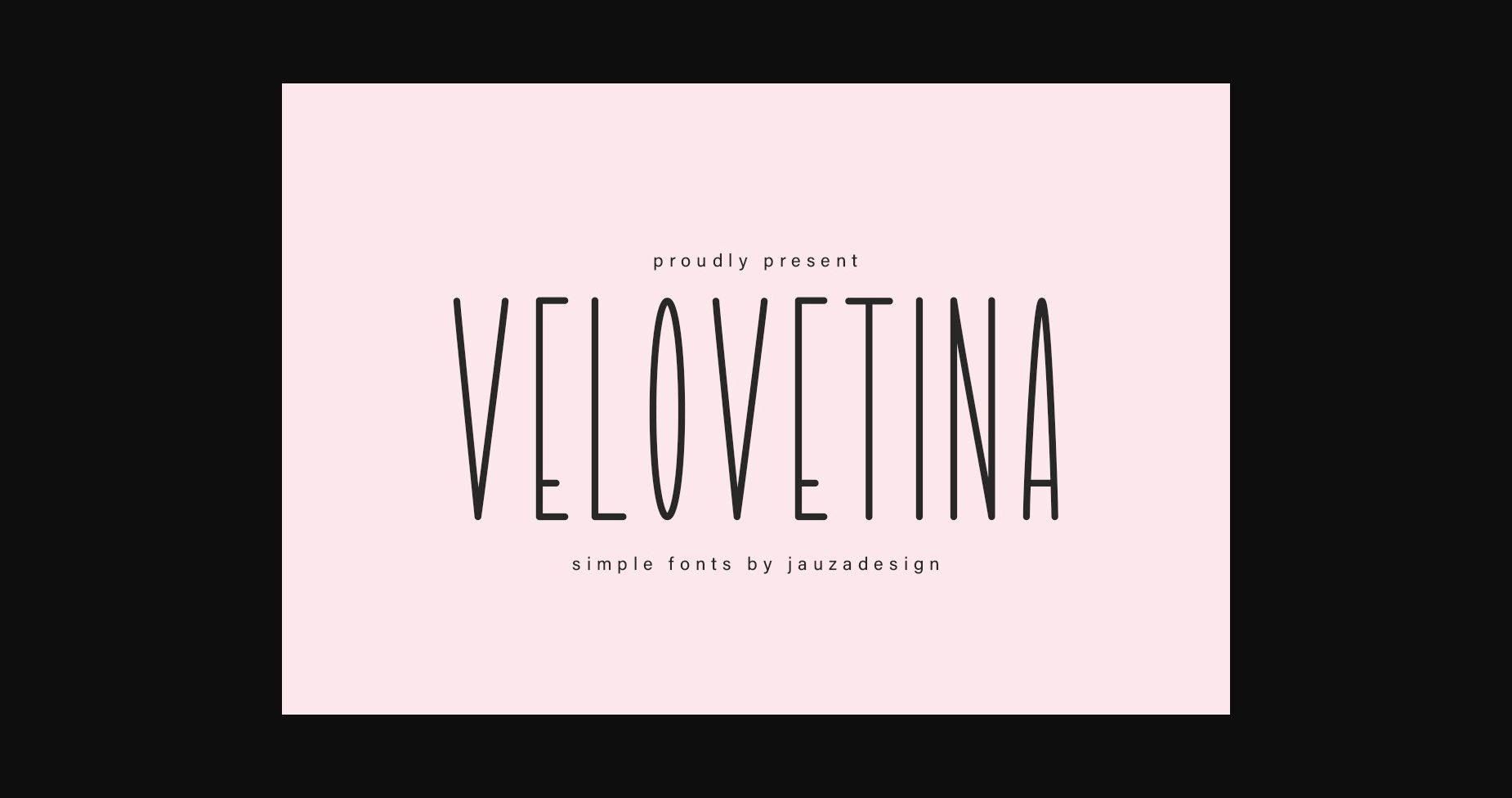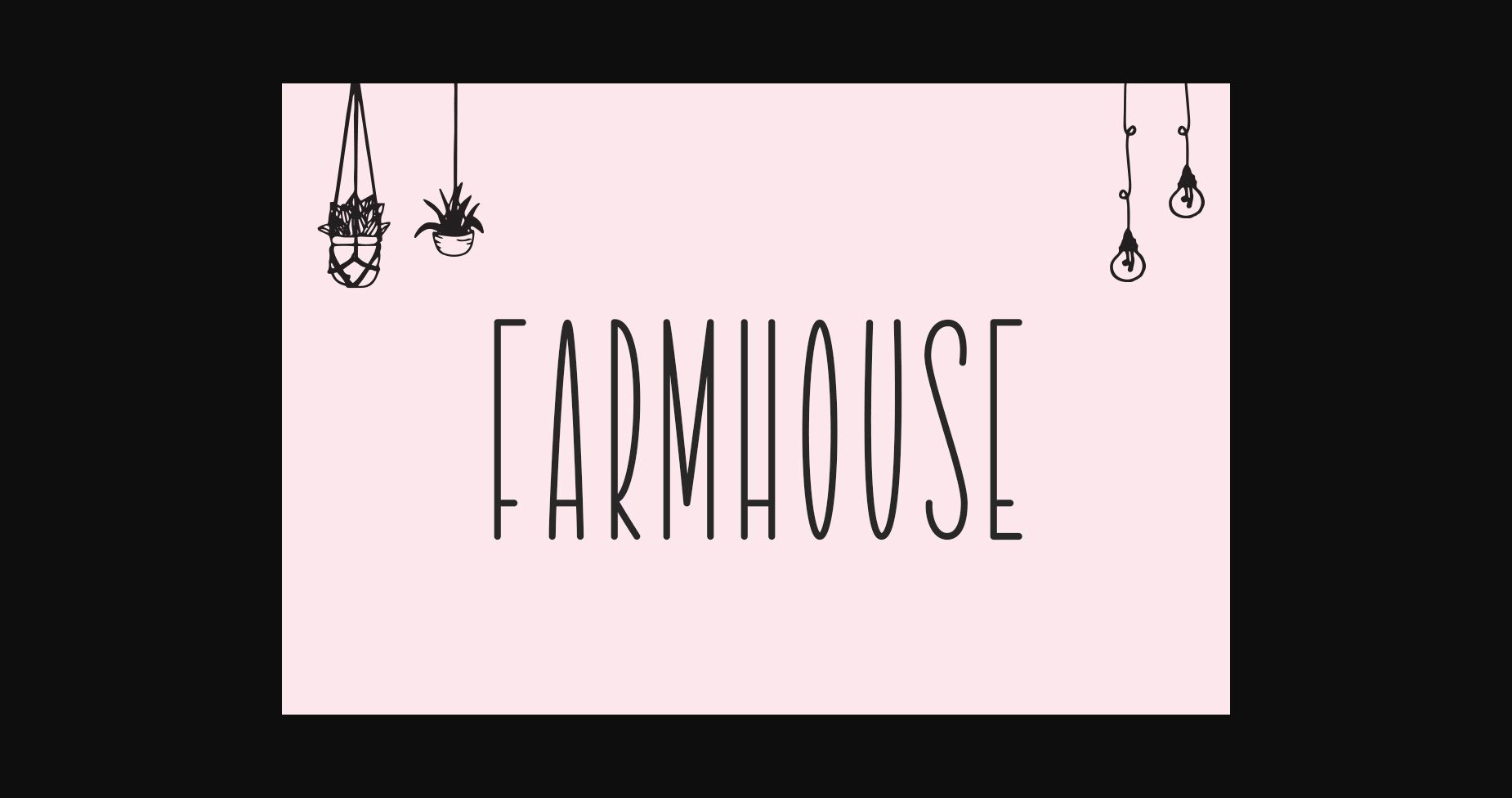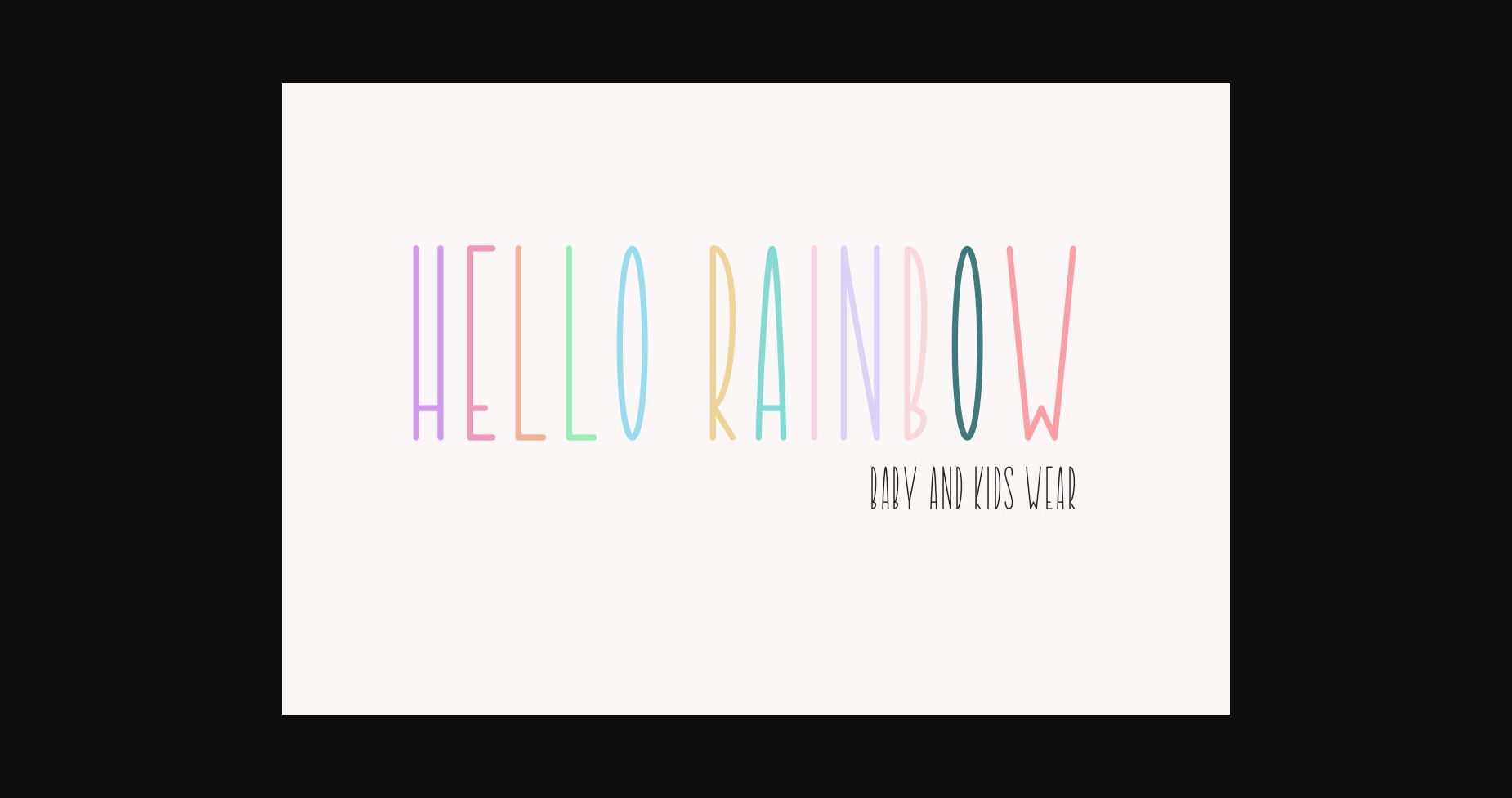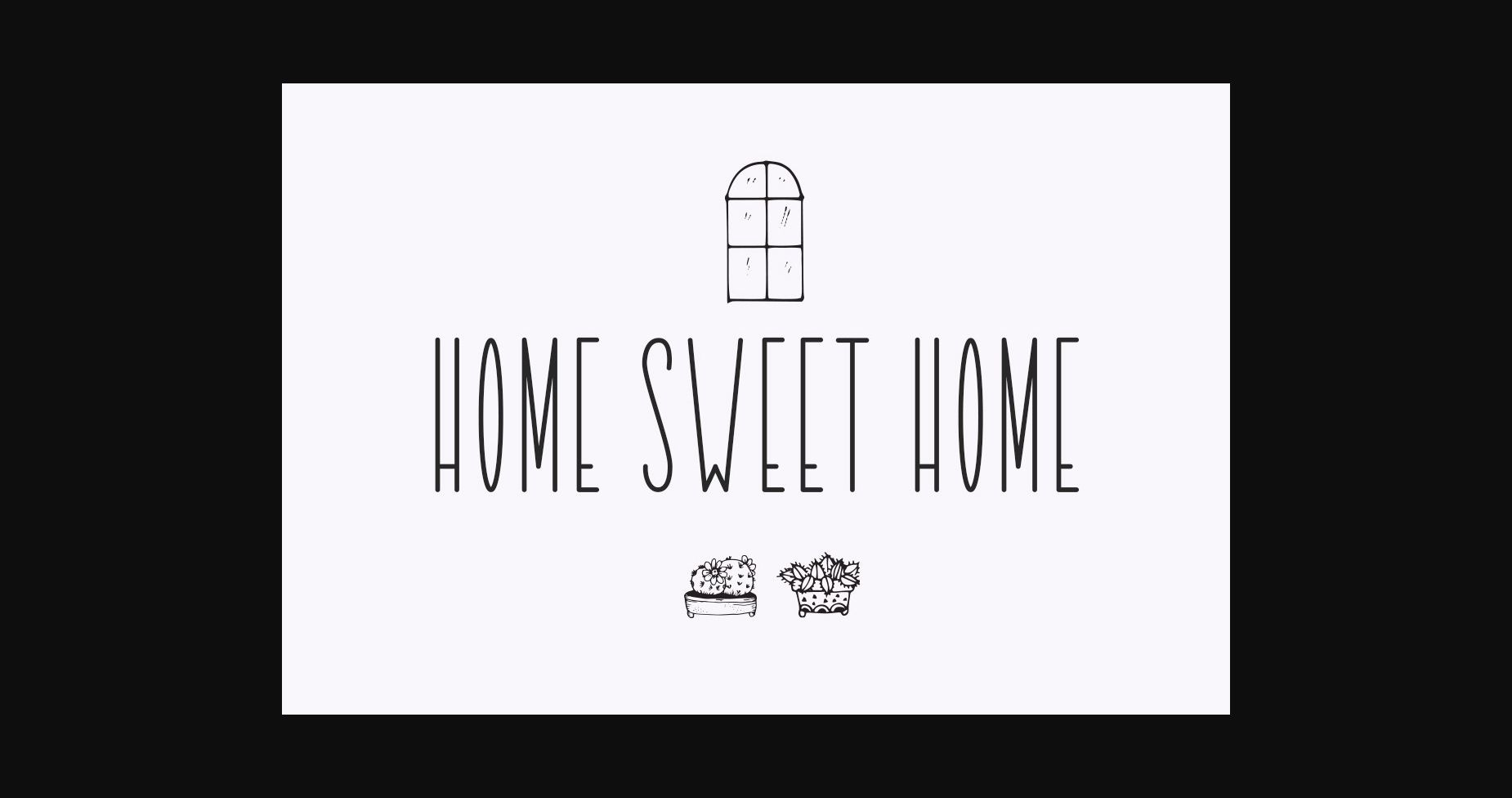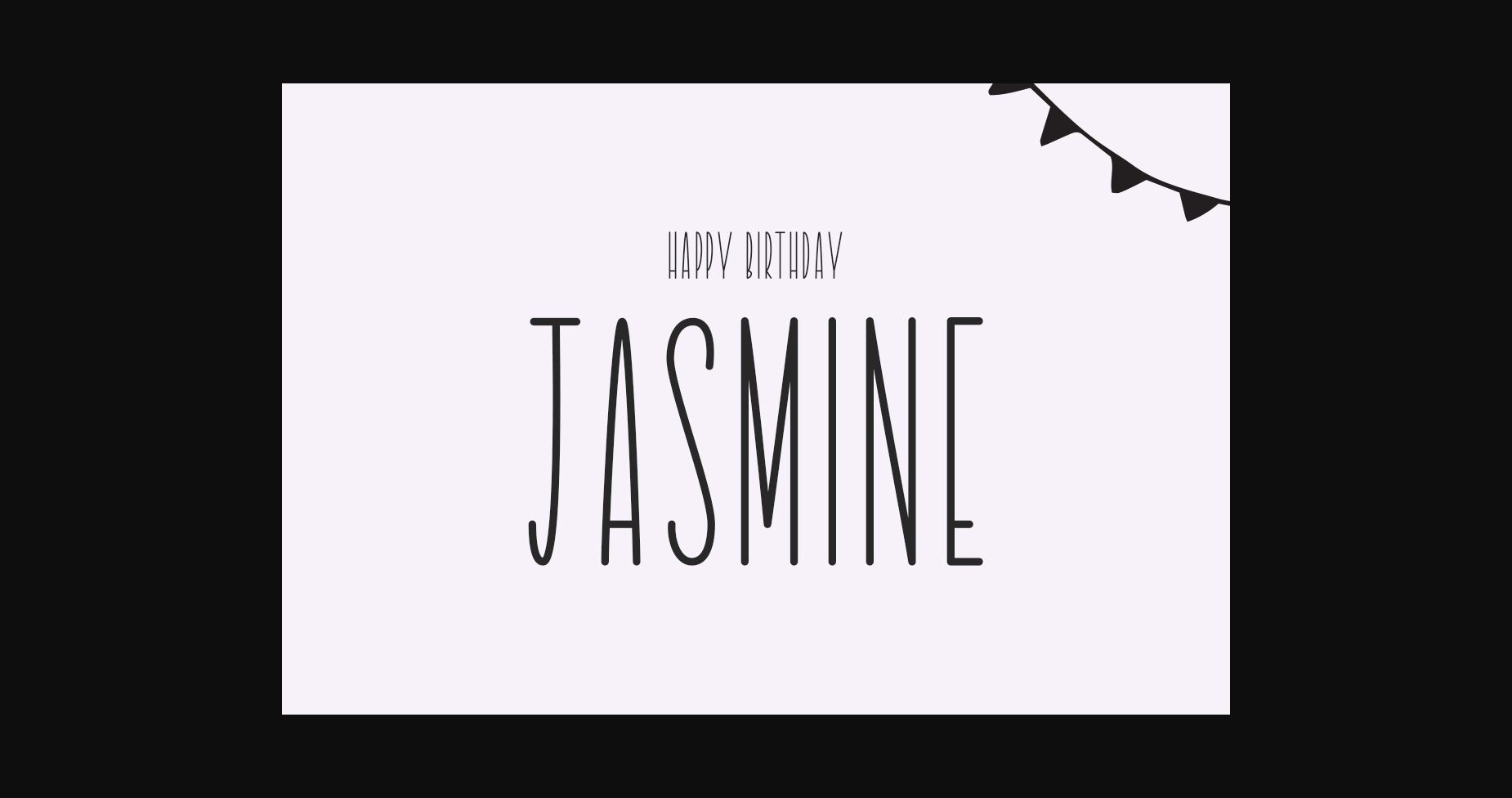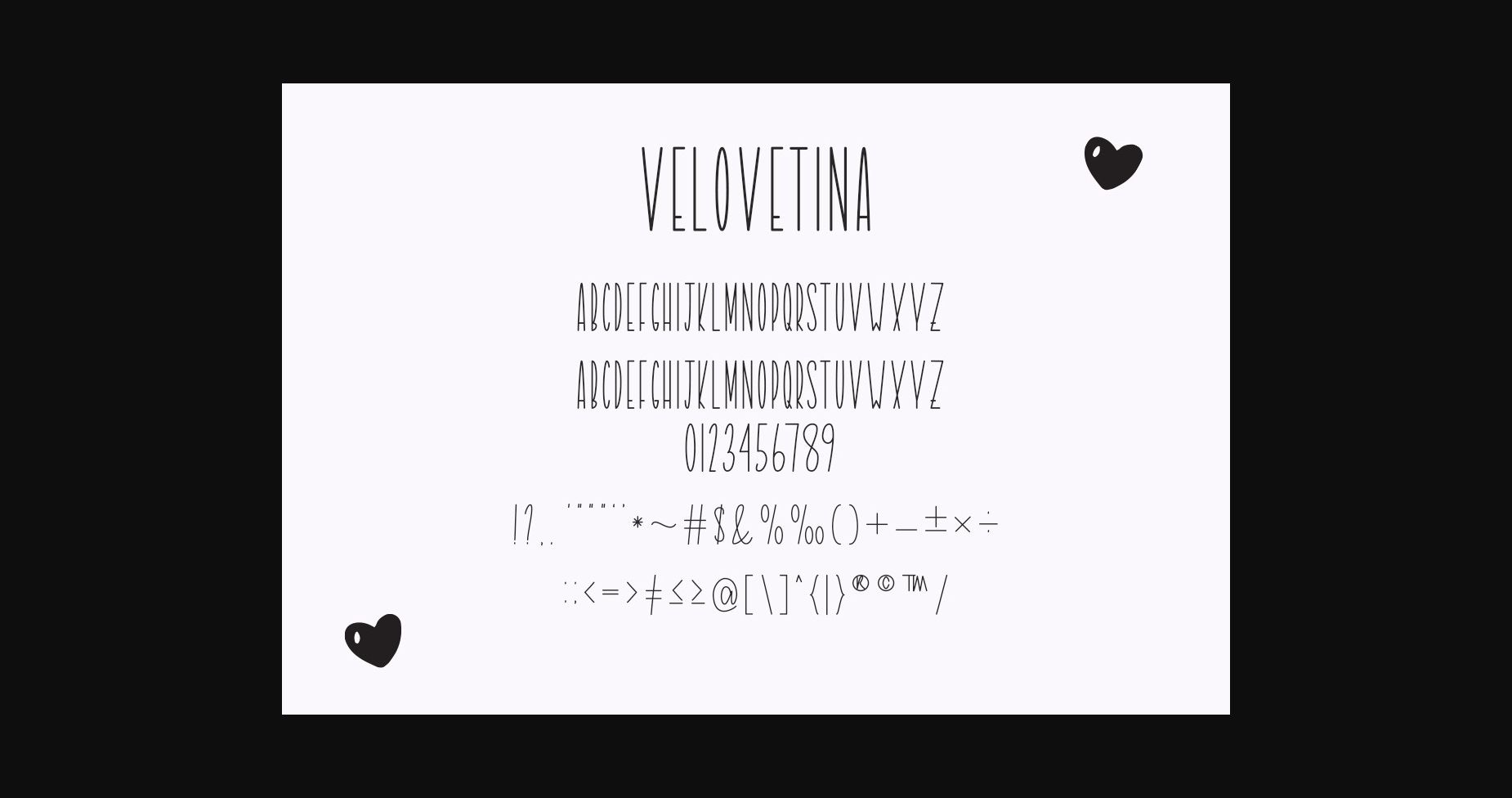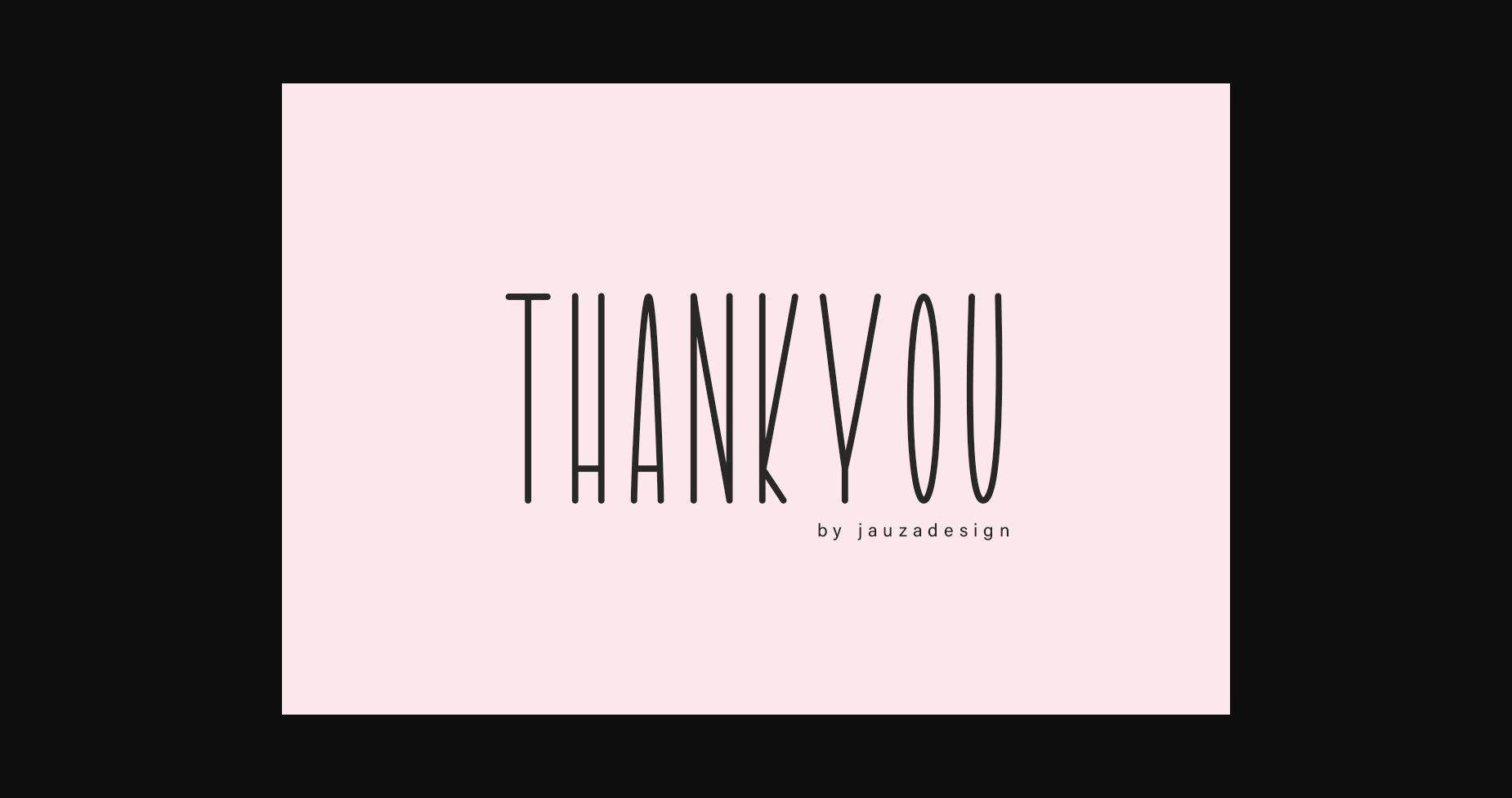
HomeSans Serif FontsVelovetina Font Sans Serif Fonts Velovetina Font FacebookXPinterestWhatsApp 1 of 9 ... Velovetina Font Poster 2... Velovetina Font Poster 3... Velovetina Font Poster 4... Velovetina Font Poster 5... Velovetina Font Poster 6... Velovetina Font Poster 7... Velovetina Font Poster 8... Velovetina Font Poster 9... About Velovetina Font Velovetina is a clean and neat sans serif font. It can easily be matched to an incredibly large set of projects, so add it to your creative ideas and notice how it makes them stand out! DOWNLOAD NOW People also explored Fateya Font Rosesosith Font Caroline Font Syakira Script Font Chole Mint Font Geasthon Font College Font Cuff and Link Font Wilame Font 288 0 TagsVelovetina Font Previous articleFarmhouse Handmade FontNext articleHigh Voltage Font LEAVE A REPLY Cancel reply Comment: Please enter your comment! Name:* Please enter your name here Email:* You have entered an incorrect email address! Please enter your email address here Website: Save my name, email, and website in this browser for the next time I comment. Personal Use Free Beautiful Personal Use Free Read more about this font BD Geminis Personal Use Free Read more about this font Super Caramel Font Personal Use Free Read more about this font Zalitta Personal Use Free Read more about this font BLOG How to Cut Any Font on Cricut: Convert a Font to SVG (Free) Turn any font into a clean SVG so it cuts crisp on Cricut - a quick 3-step workflow using a free font-to-SVG tool. Fonts That Capture the Spirit of New York City Best Fonts for YouTube Videos: Make Your Thumbnails Stand Out Where to Buy American Fonts Online in 2024